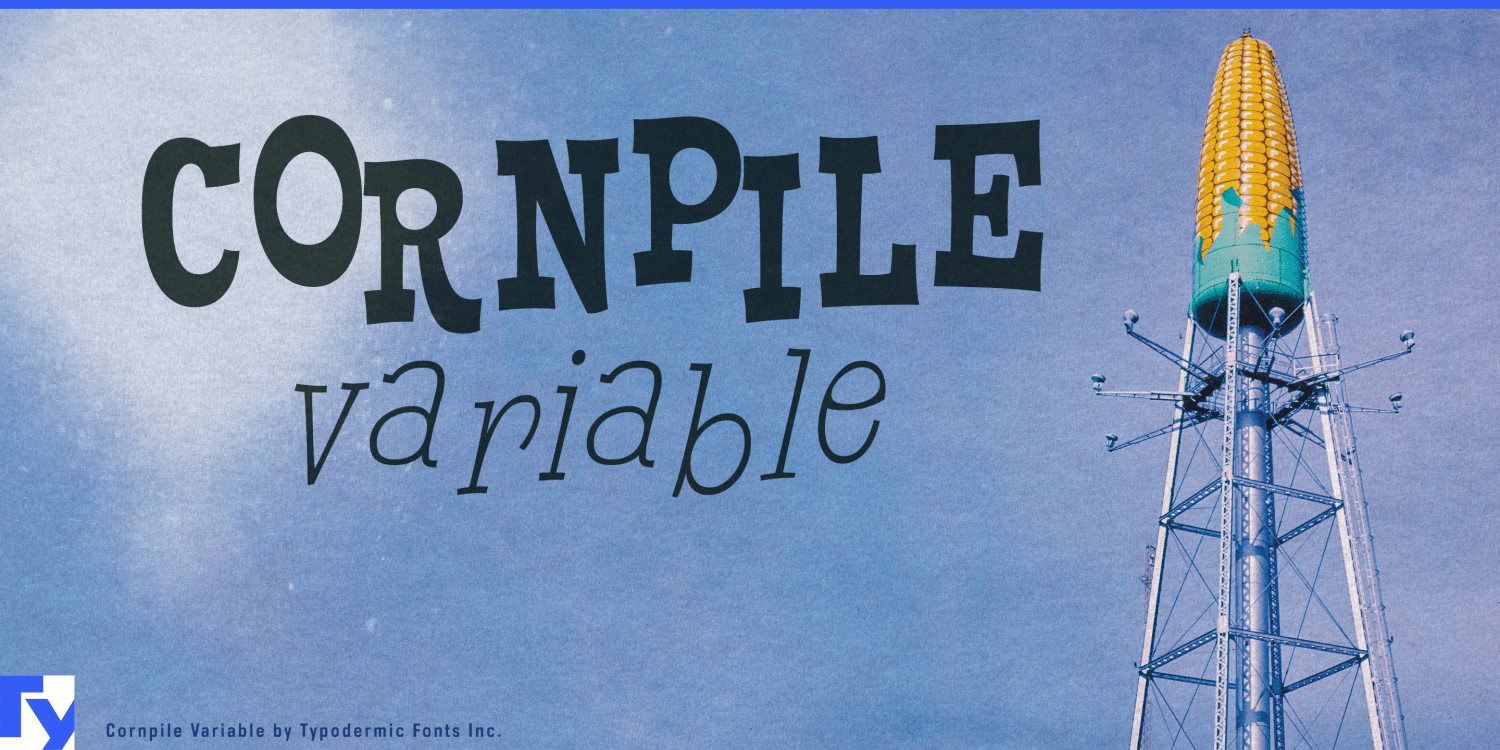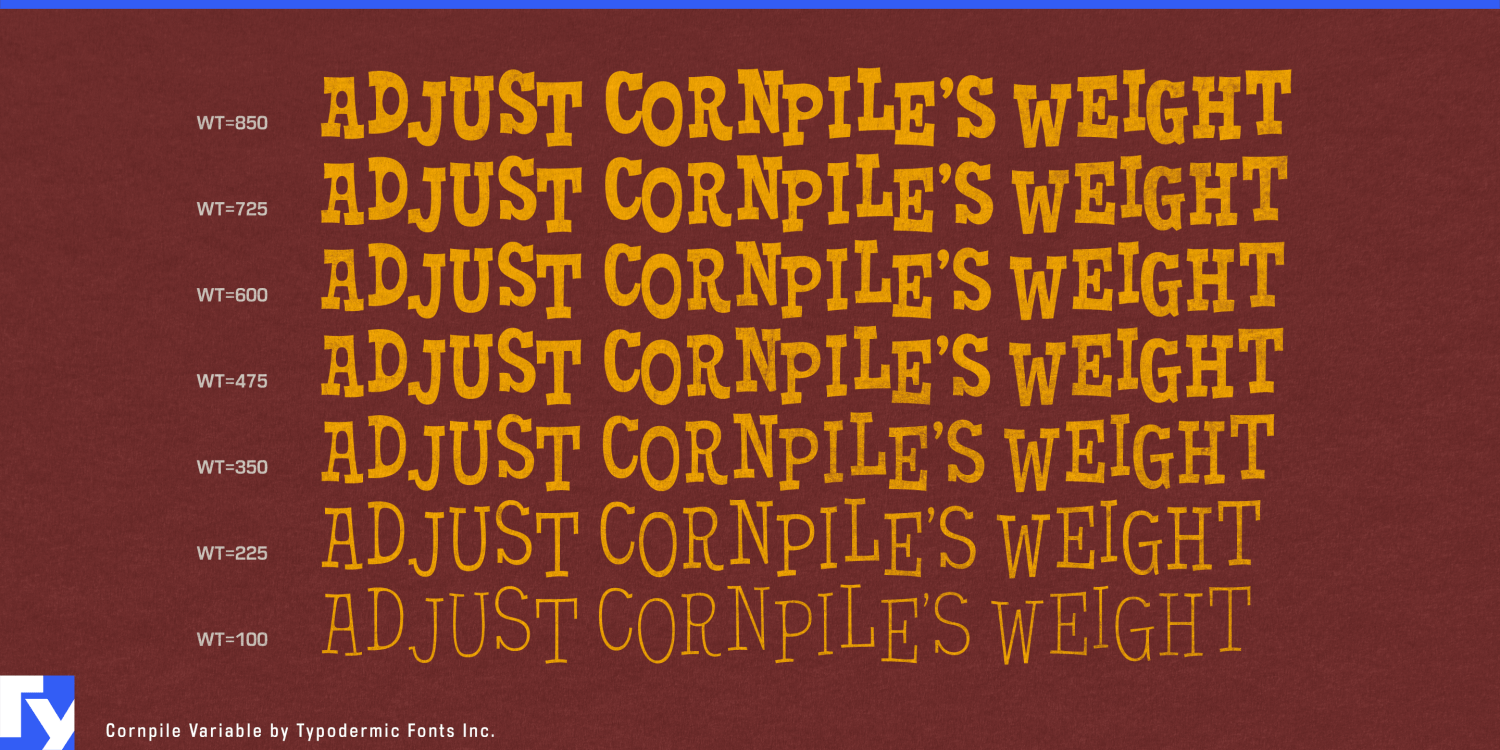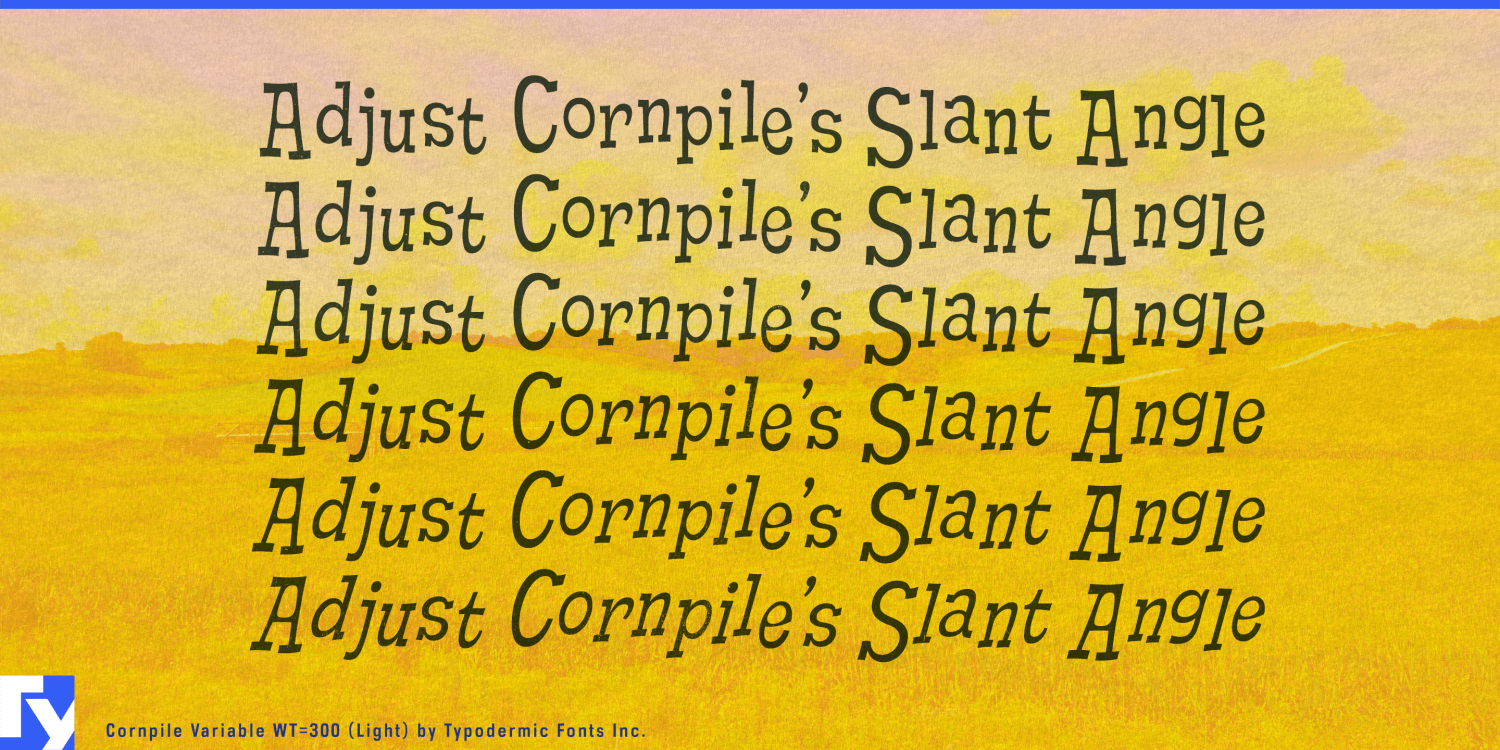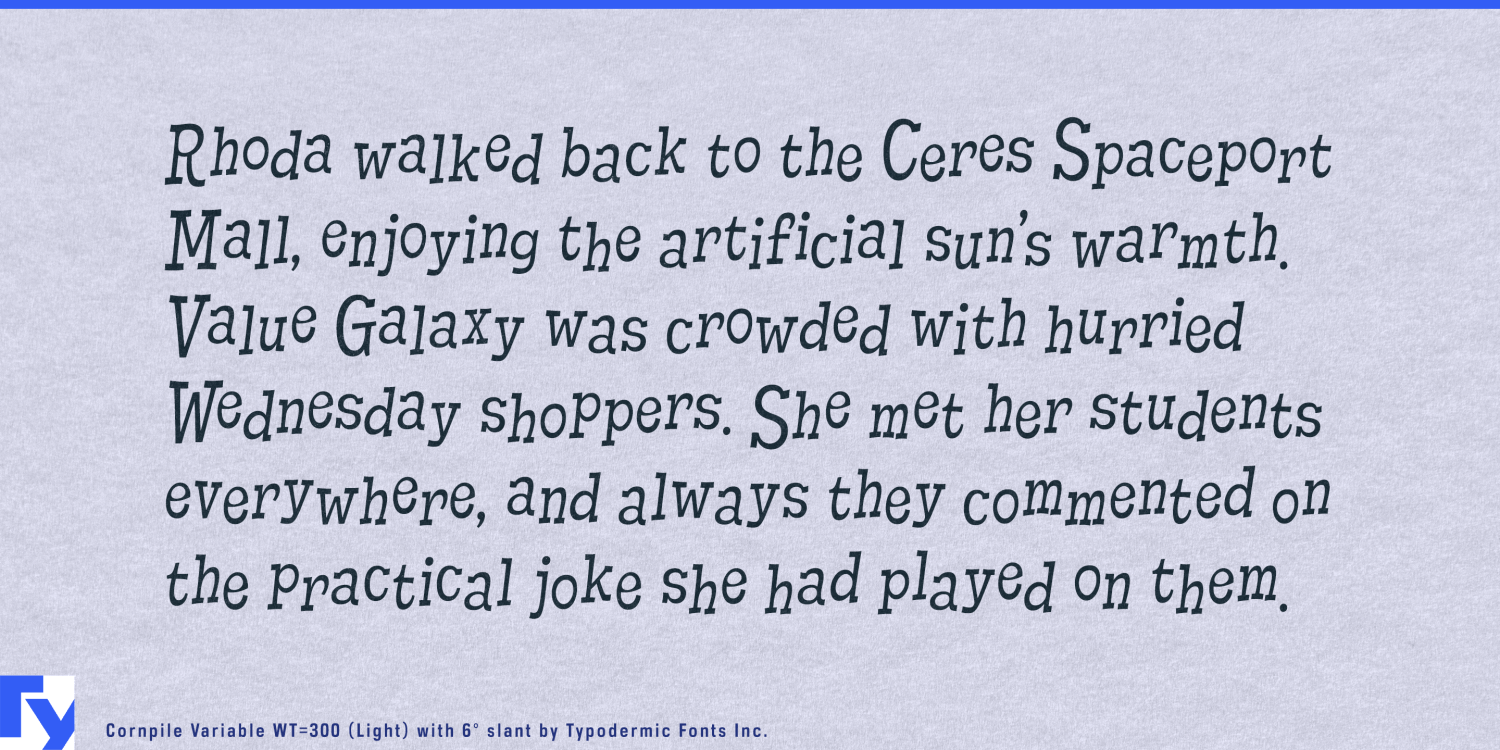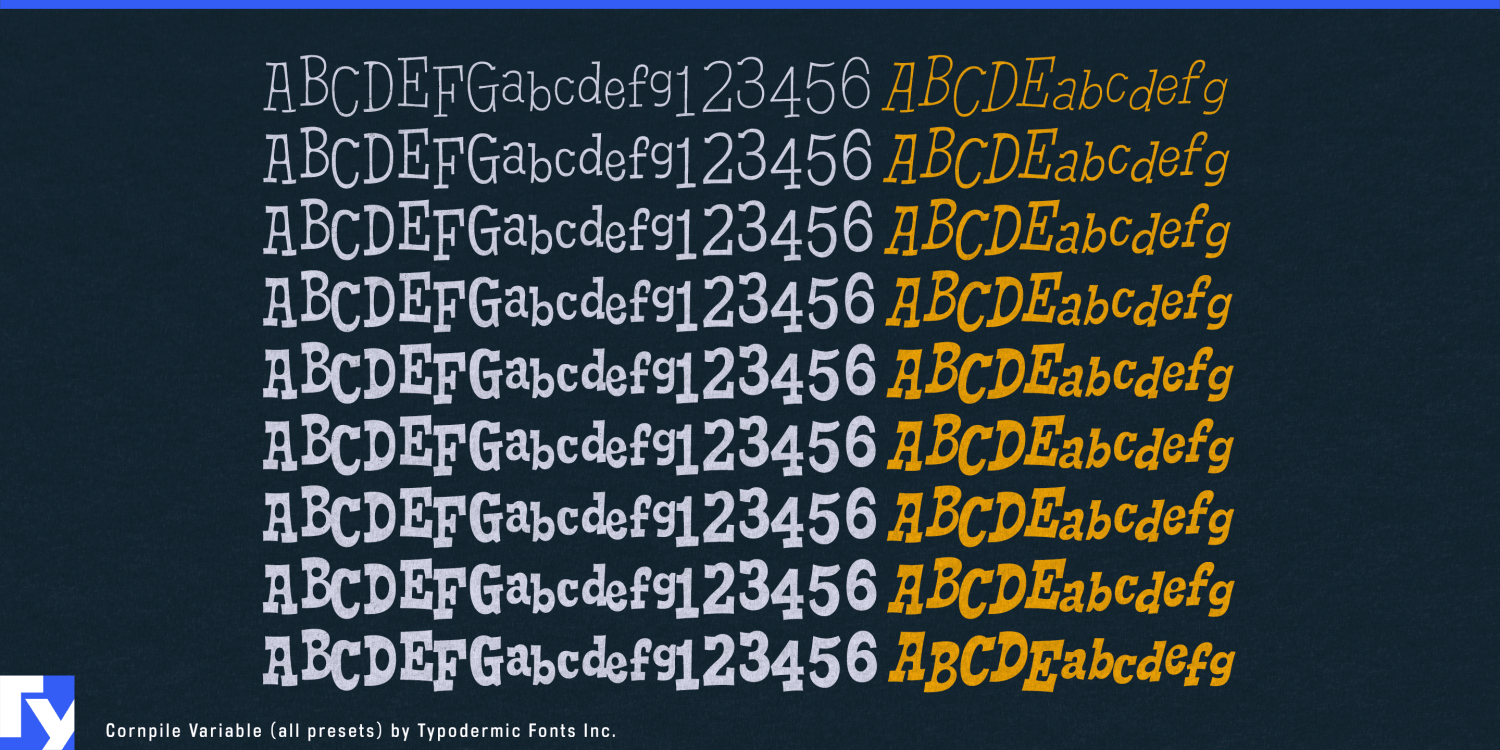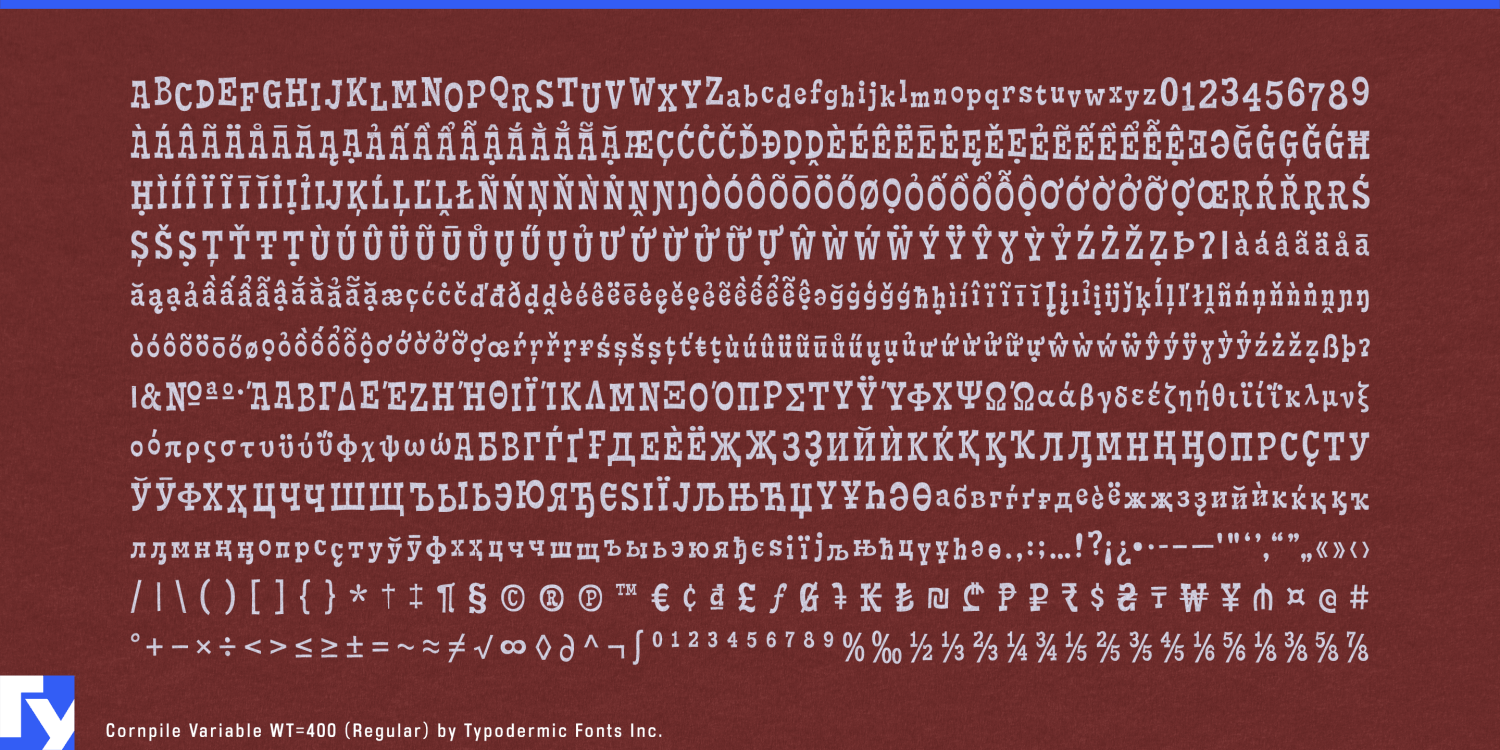
Cornpile Variable
Font Family by Typodermic
Cornpile Variable takes that same can’t-sit-still personality and gives you the controls to push it as far—or as subtly—as you want. It’s the full Cornpile experience, but now you can fine-tune every ounce of boldness and tilt, creating custom styles that feel exactly right for your project.
Two flexible axes—weight and slant—let you dial in anything from a laid-back light with a casual lean to a barnstorming bold that’s perfectly upright. Want something in-between, like a semi-bold with just a whisper of slant? Easy. And all the while, those off-beat serifs and wiggly letterforms keep grinning back at you.
Automatic alternates bring the bounce, making your text skip and hop unpredictably for that extra “did my font just do that?” moment. You can keep it mild for a friendly wink or let it go full-tilt into cartoon territory. Like its sibling, Cornpile Variable supports Latin, Greek, and Cyrillic alphabets, so you can spread the joyful chaos far and wide. But the variable format adds a new kind of mischief—squeezing into ultra-narrow weights, leaning letters just so, or building a whole typographic mood that no static font could match.
It’s Cornpile, but with the speedometer off the chart. Whether you keep it in cruise control or push it into zany overdrive, Cornpile Variable lets you steer the fun.